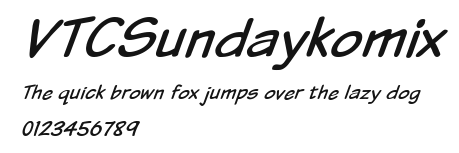
• Font Name: VTCSundaykomix
• Designer: WolfBainX
About VTCSundaykomix.ttf
VTCSundaykomix.ttf is a modern, elegant sans-serif font designed for ultimate readability and visual harmony. Perfect for branding, headlines, web design, and print materials.